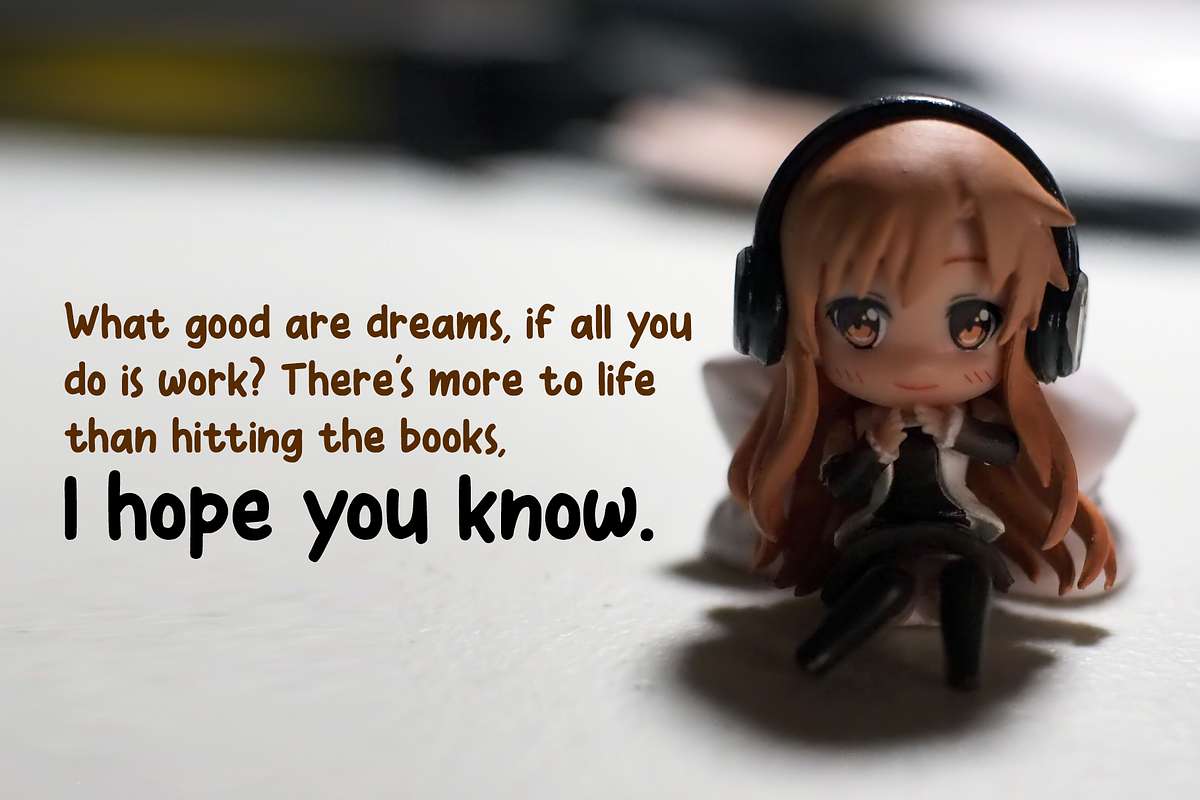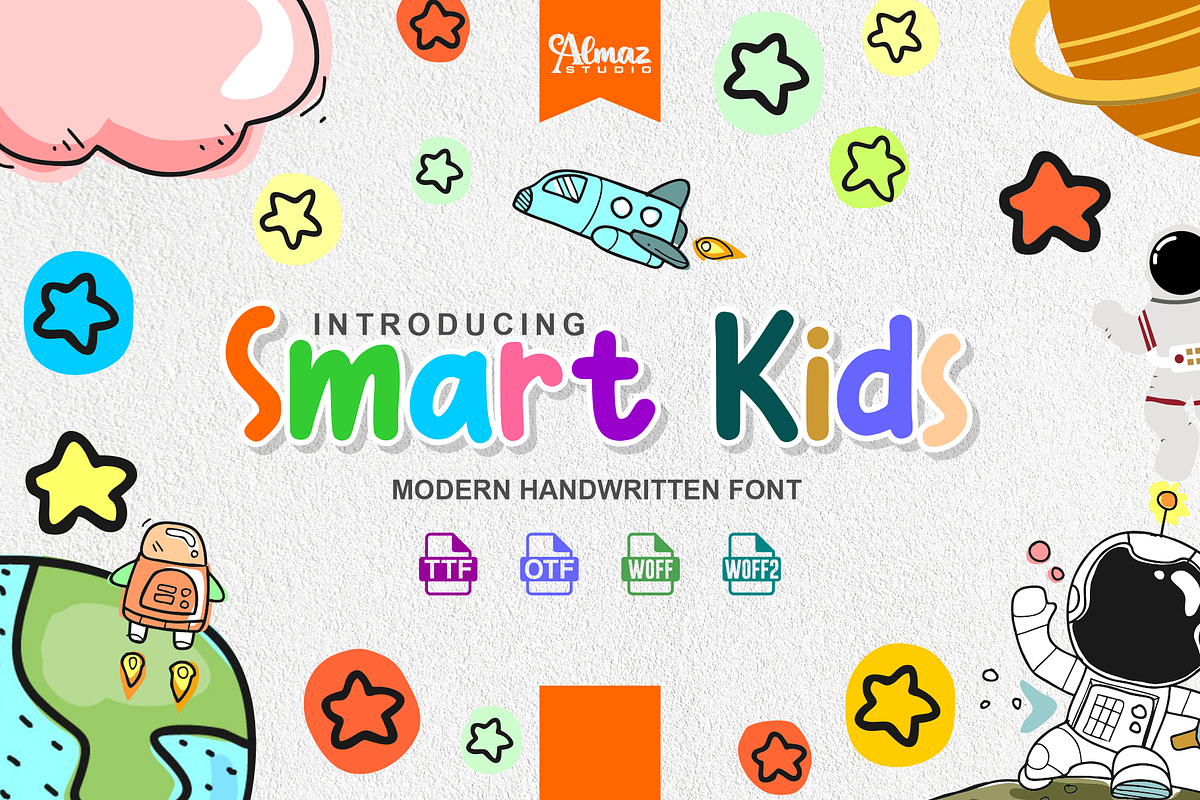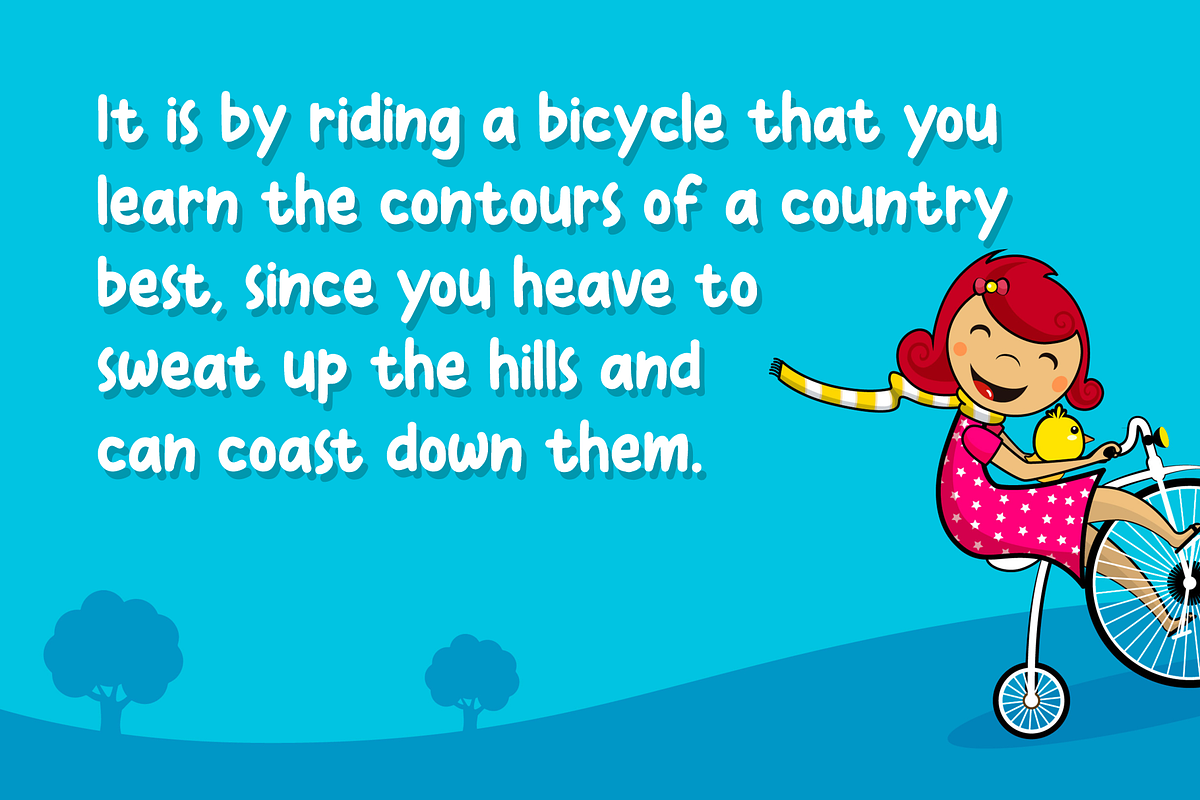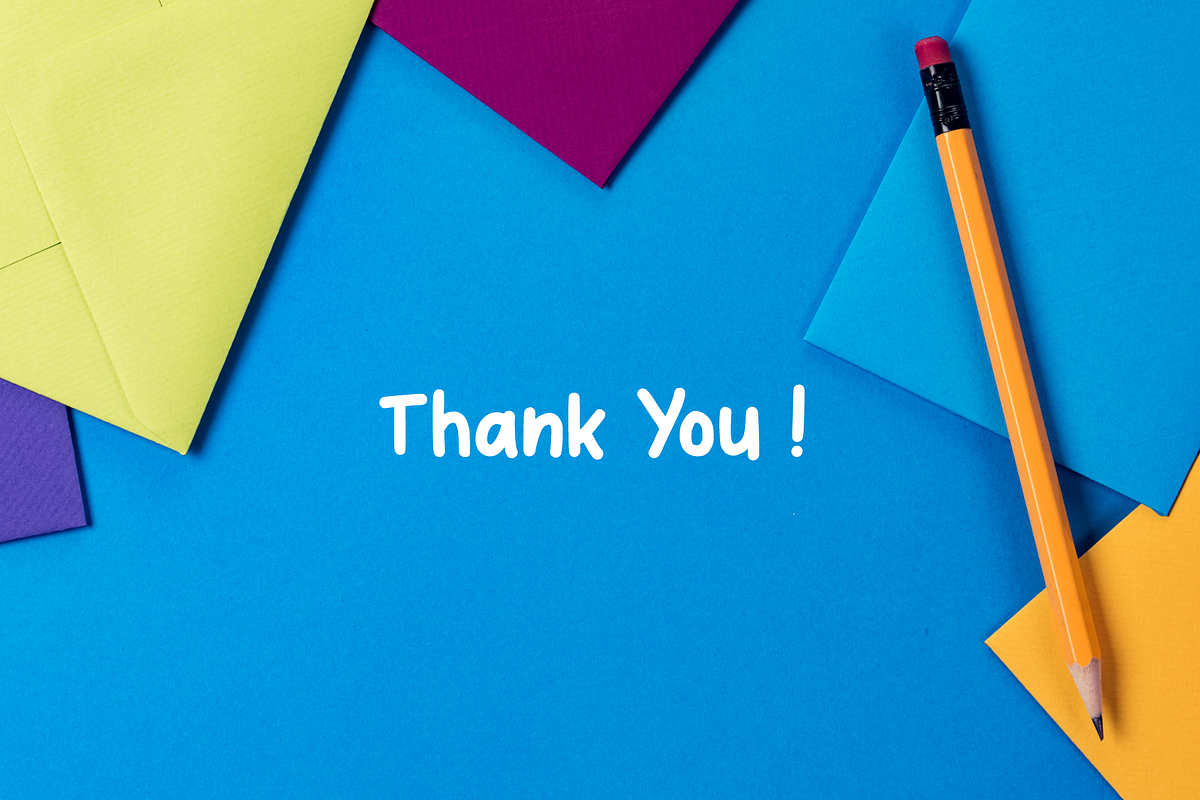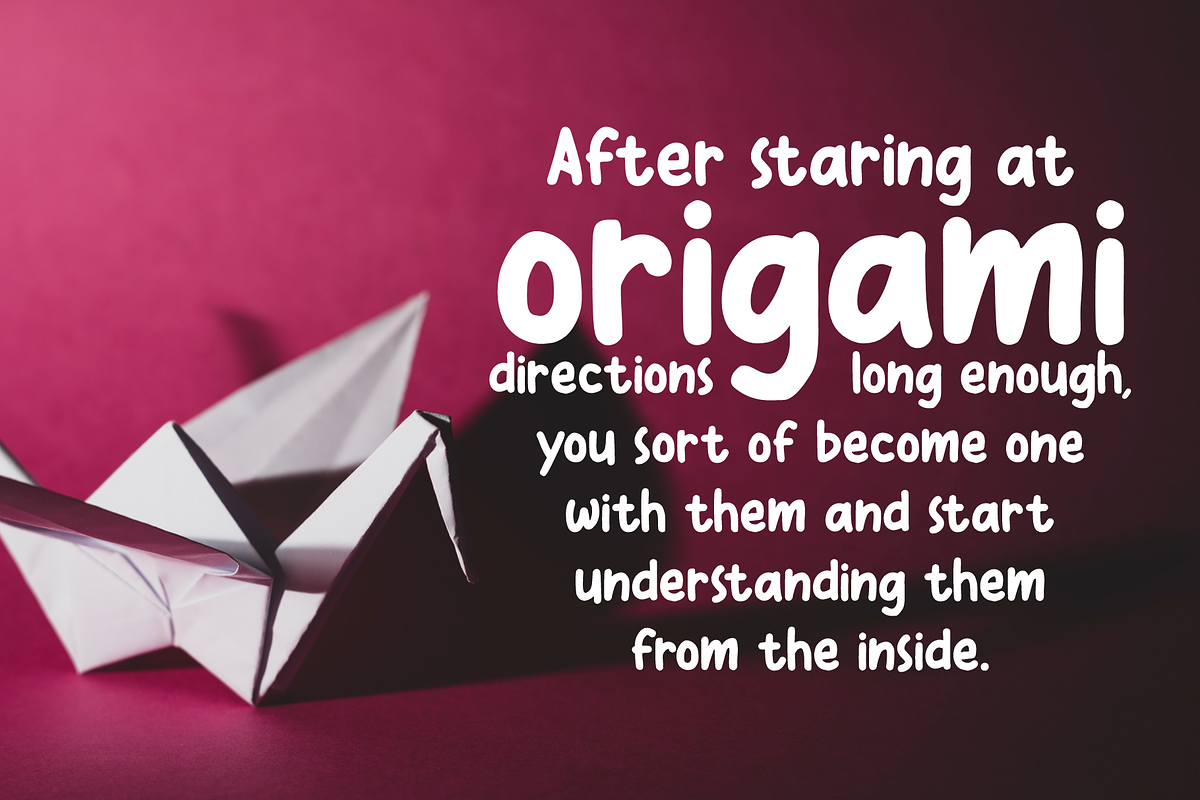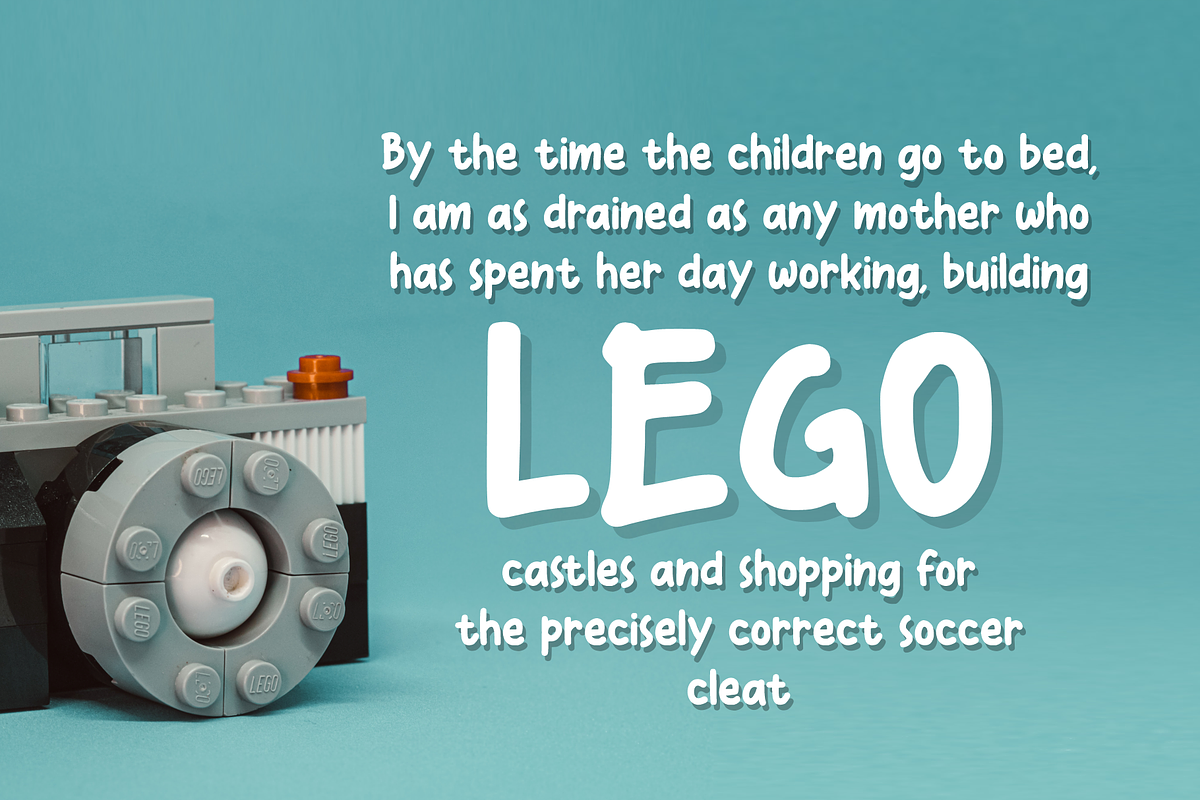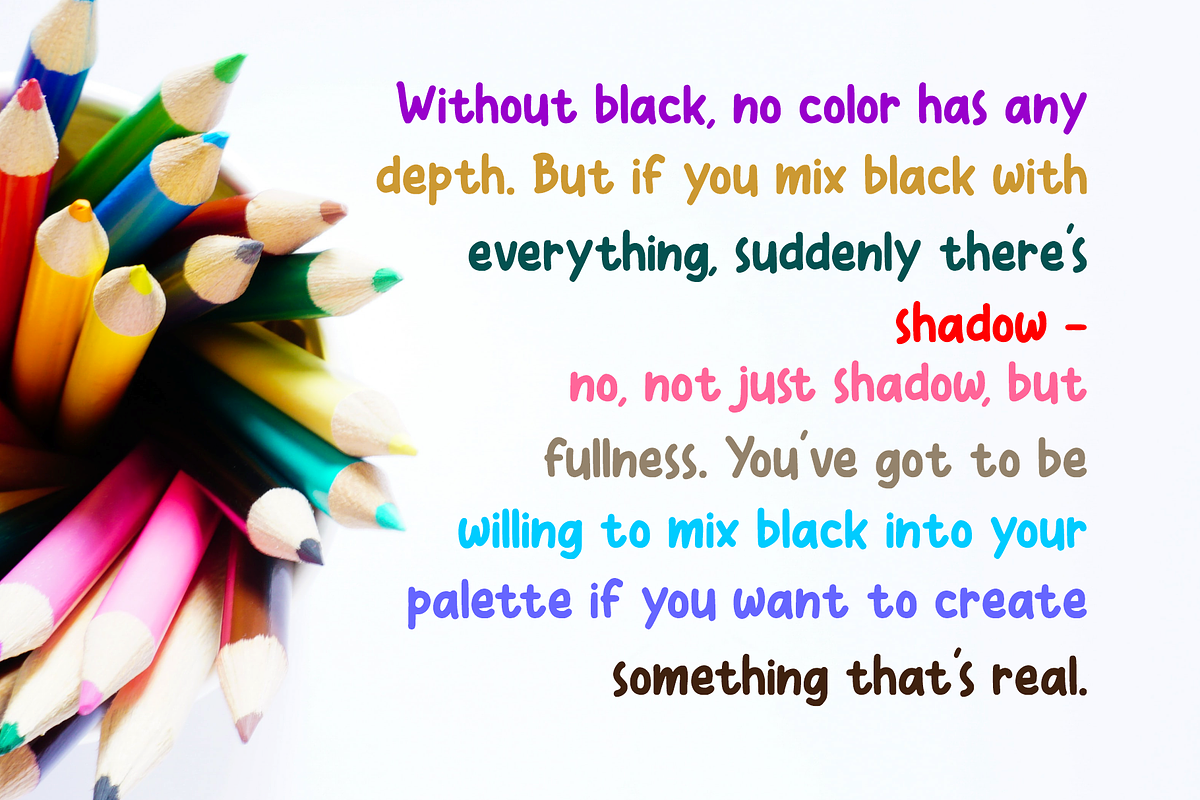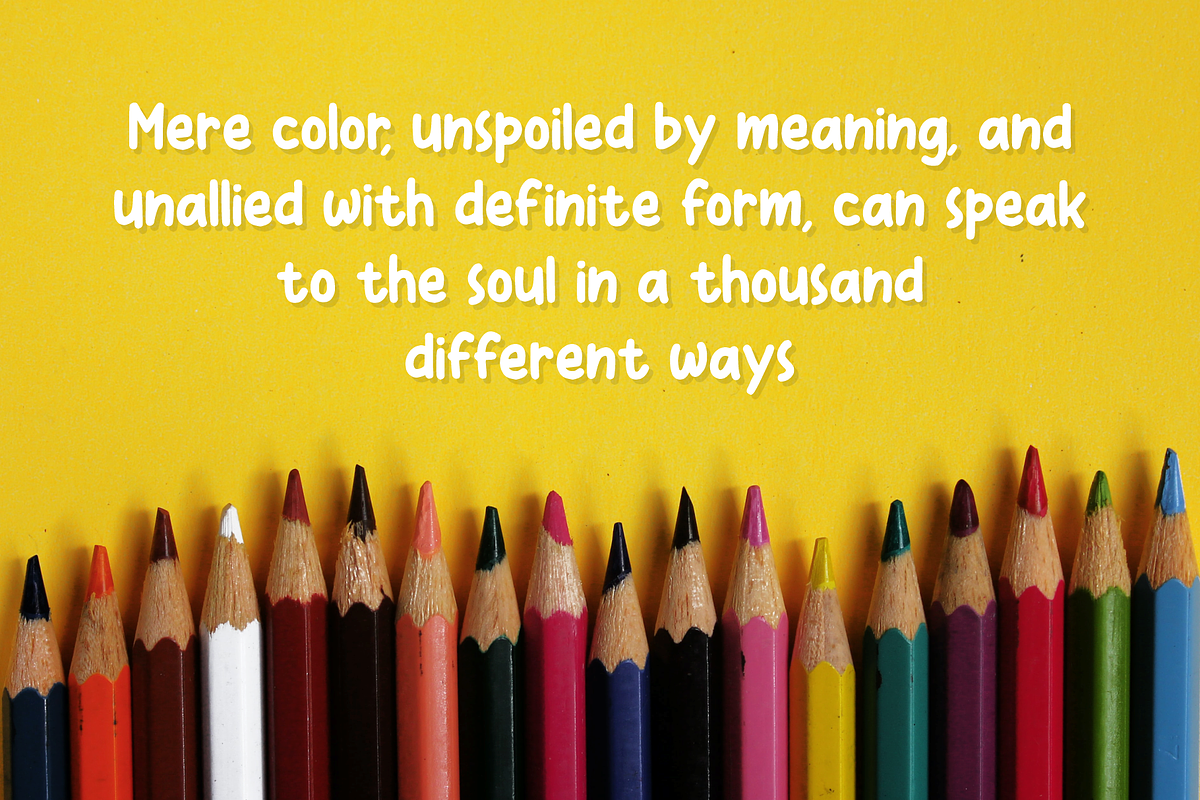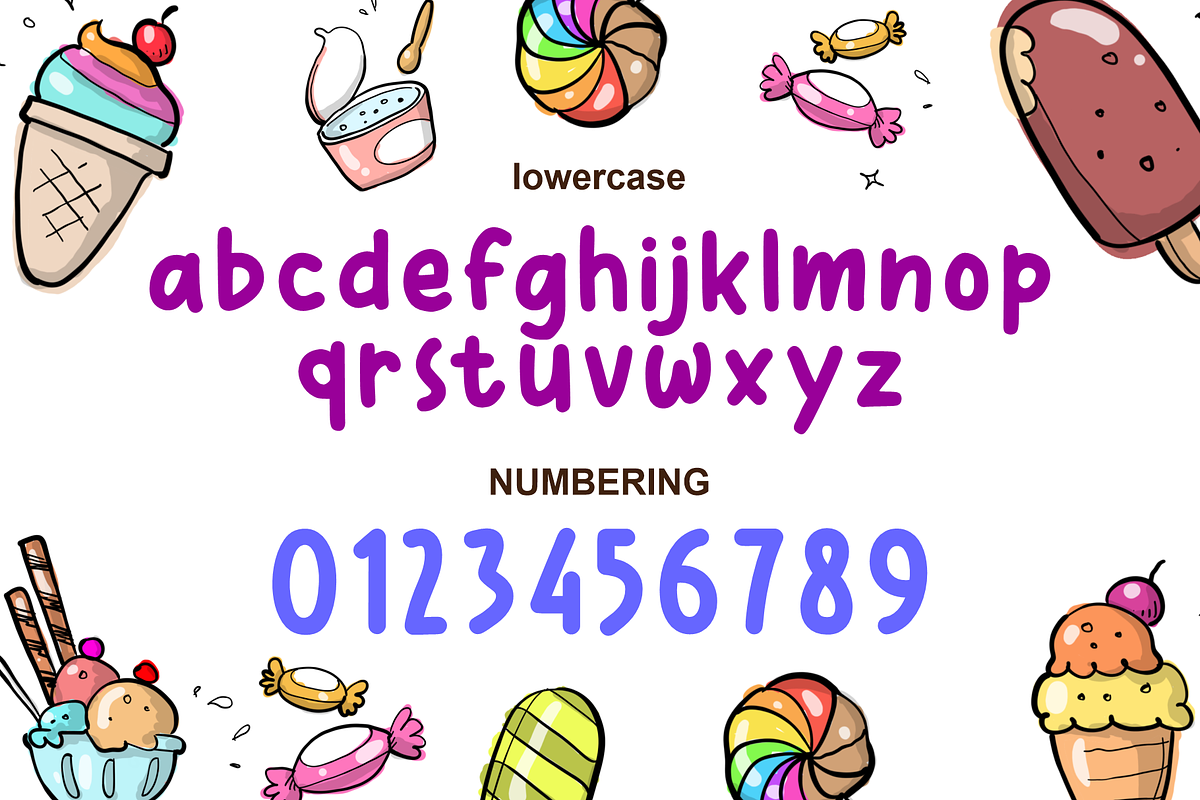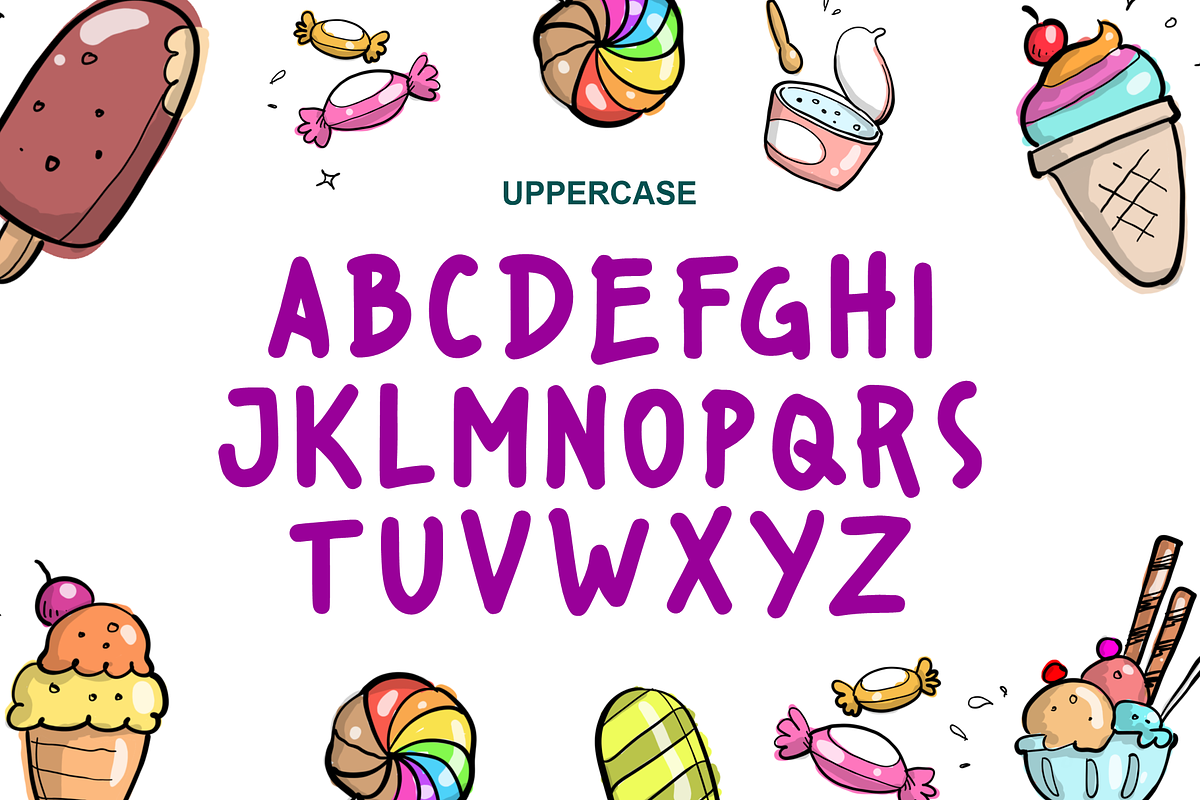
Smart Kids
Smart Kids is a handwriting font. It’s a professional version which was complicated hand-made and computer-generated graphics, and various revisions. Smart Kids clean lines and sharp edges make it a perfect, after installing on the computer you can create posters, web graphics, game graphics, t-shirts, videos, signs, logos and more. Plus, the different weights make it a stellar option for branding and web use looks really beautiful with condensed spacing as well.